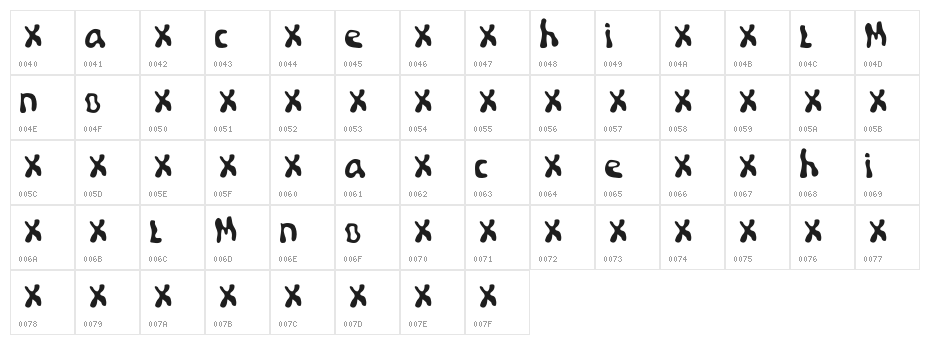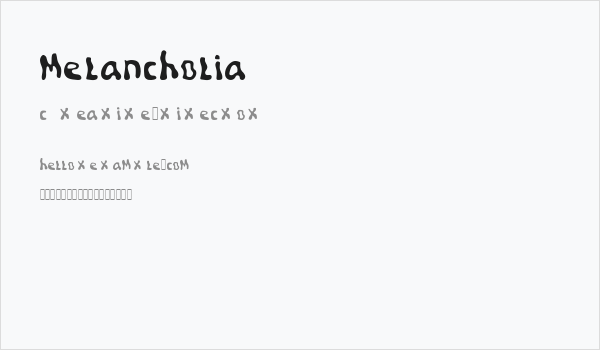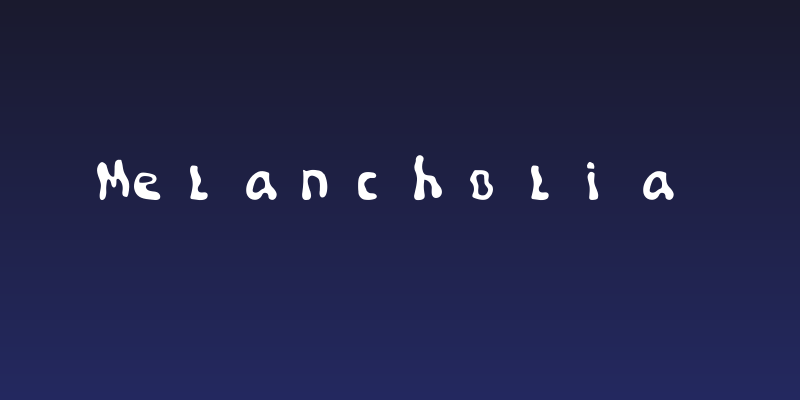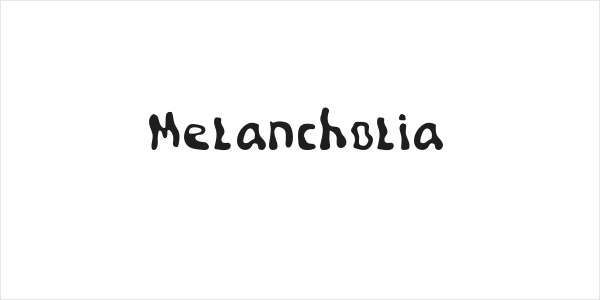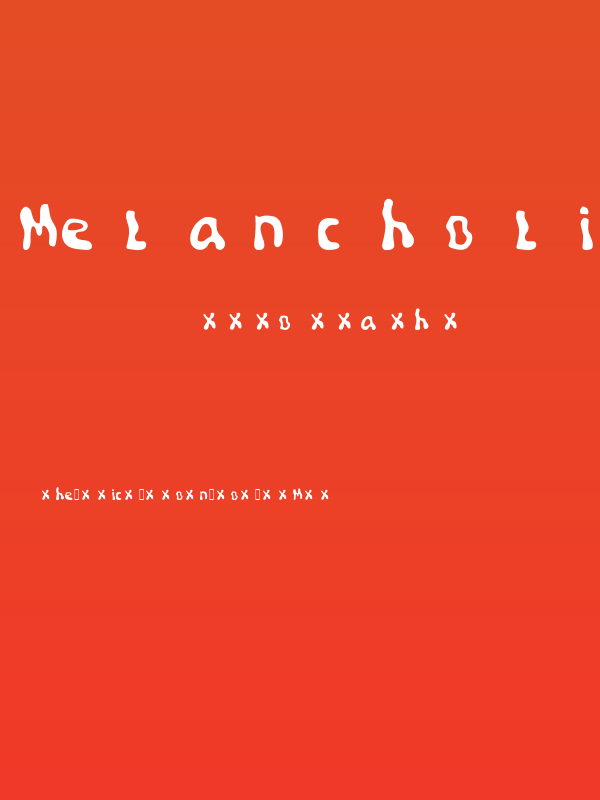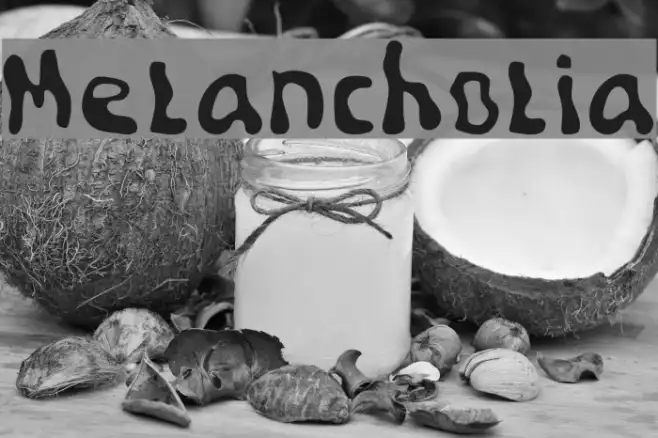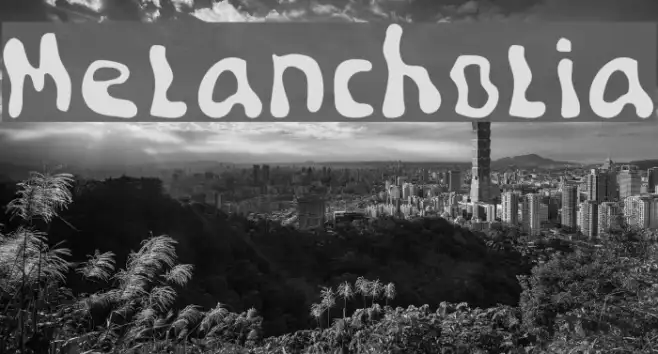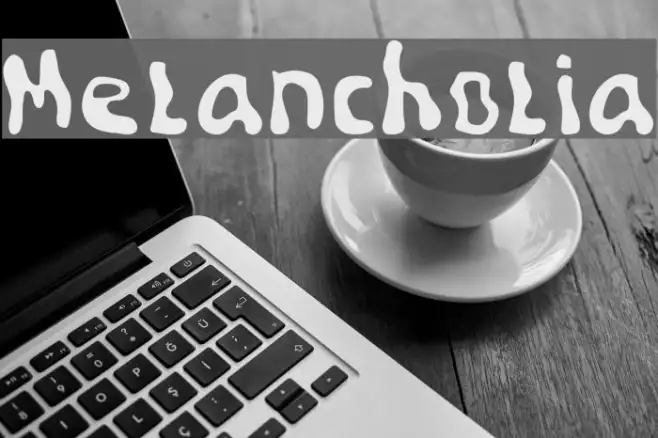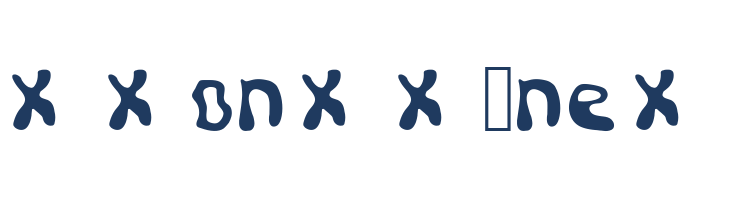
Melancholia Font
Melancholia Description
This font features a playful and whimsical design with irregular, blob-like shapes that give it a unique and artistic appearance. The characters have a hand-drawn quality, with varying thicknesses and a slightly uneven baseline, adding to its charm. The overall look is casual and informal, making it suitable for creative projects that require a touch of individuality. The font's organic forms and flowing lines create a sense of movement and energy, making it stand out in any design context.
| Overall Style | Whimsical, Artistic |
| Proposed Projects | Ideal for children's books, creative posters, artistic branding, and playful invitations. |